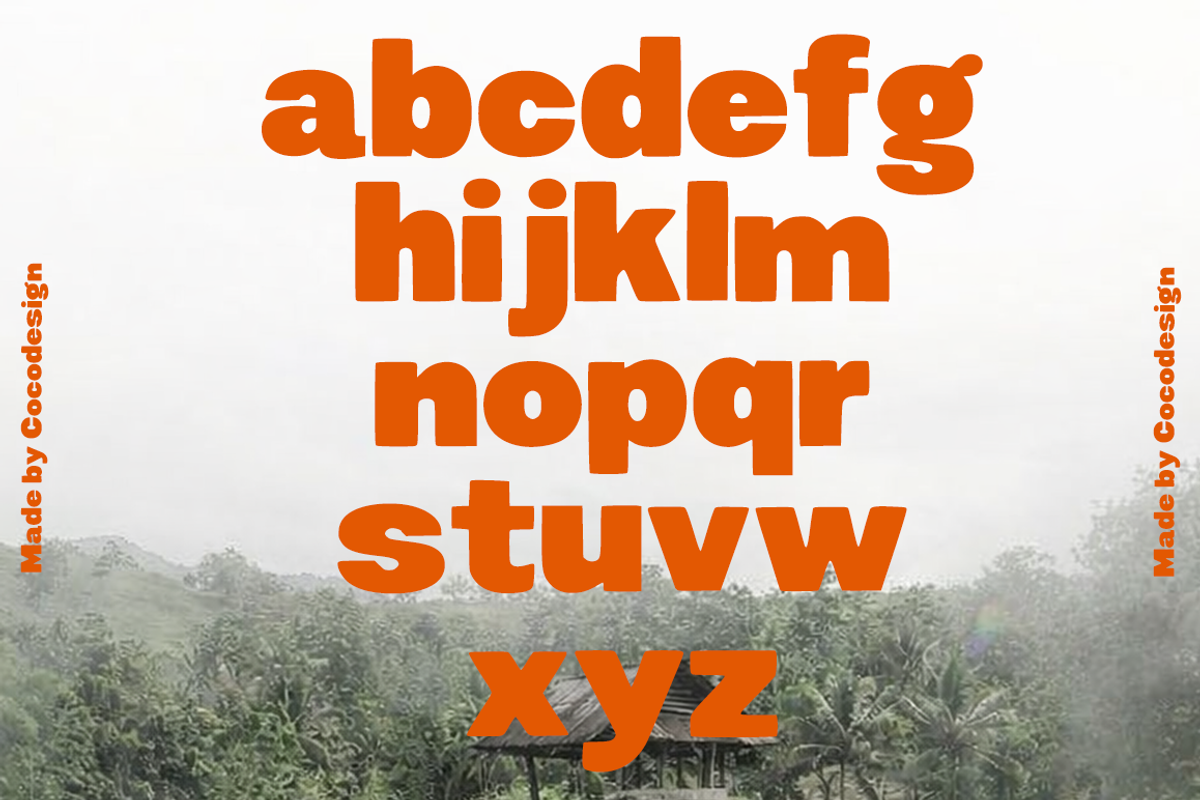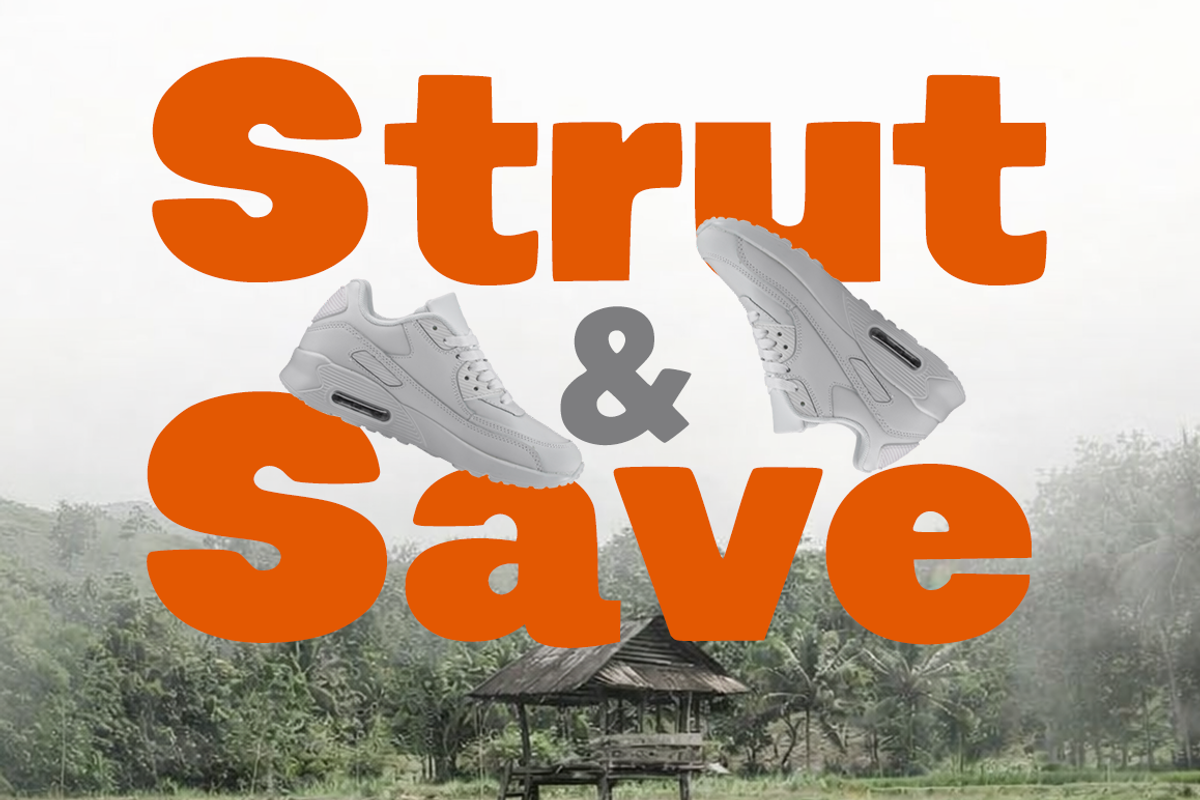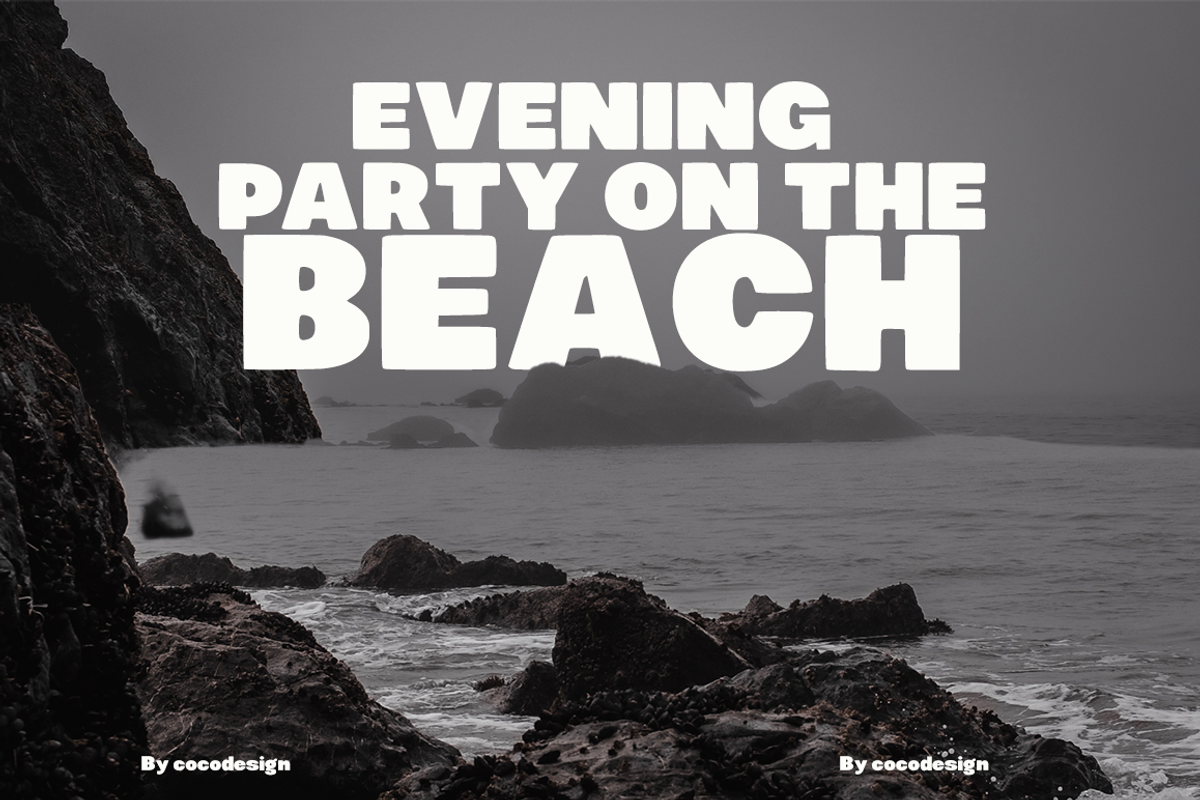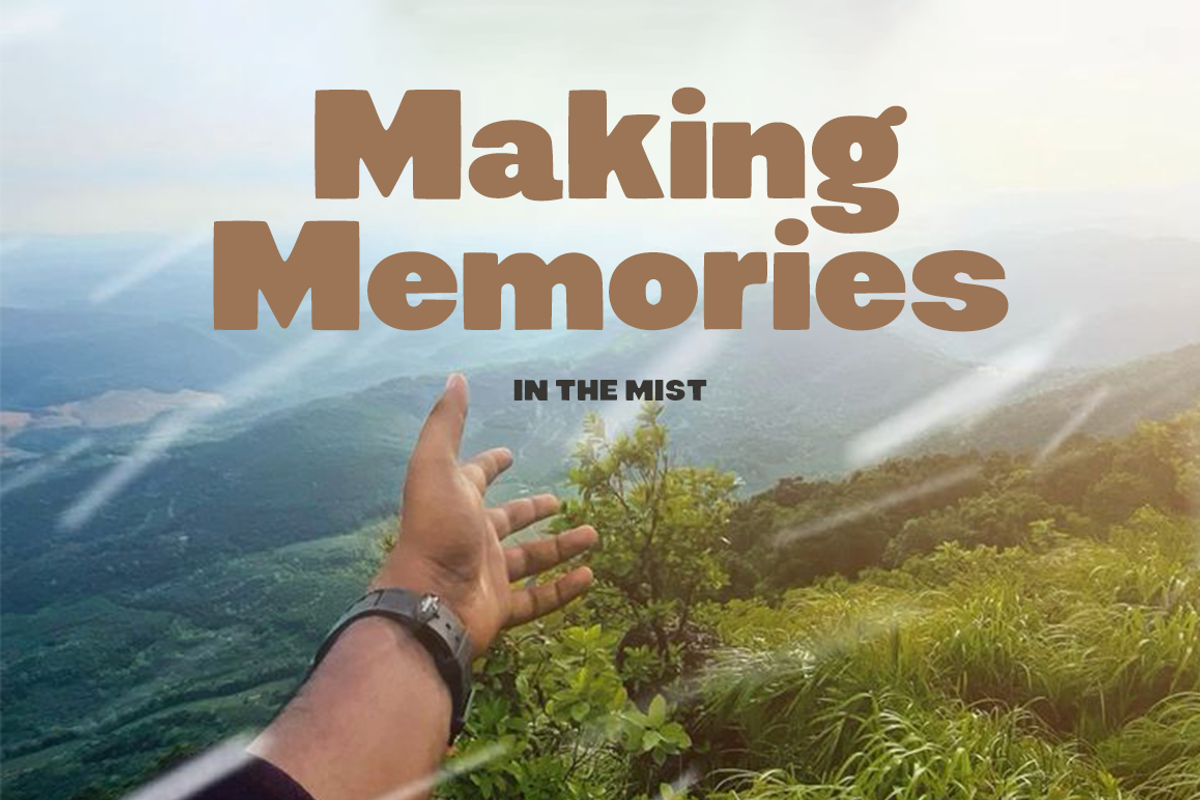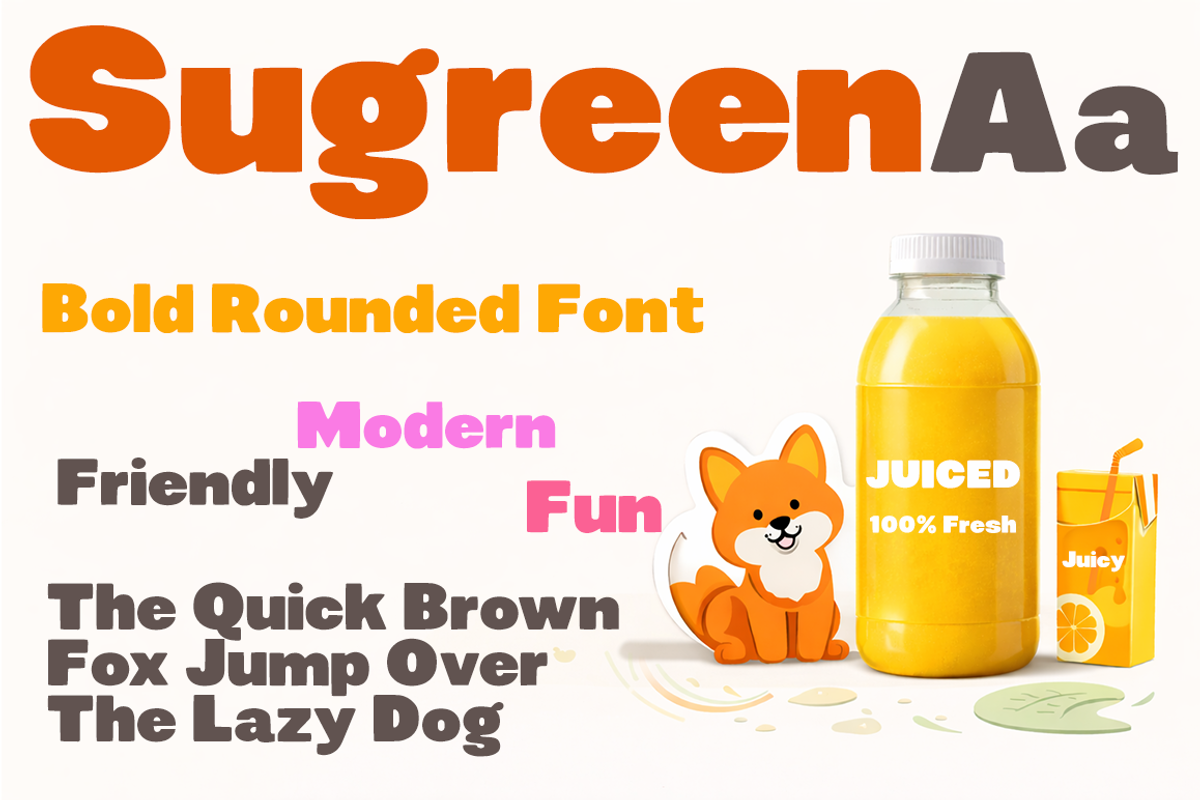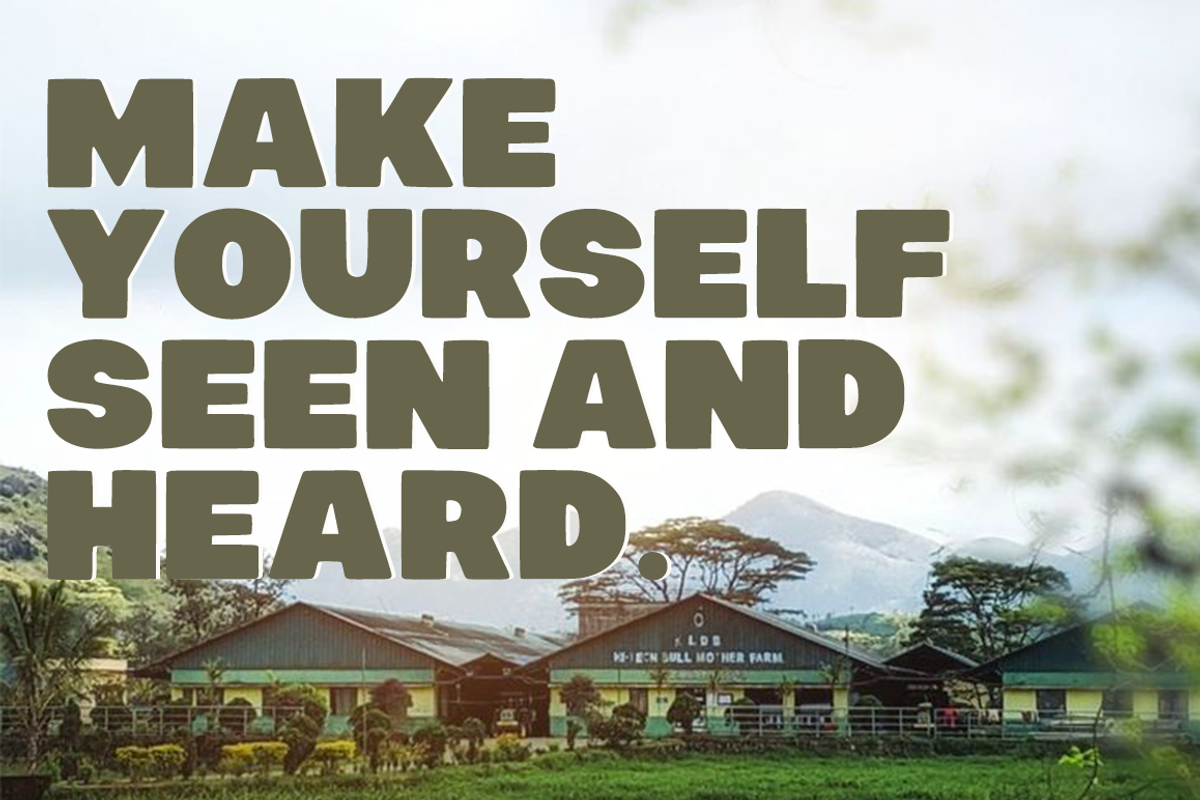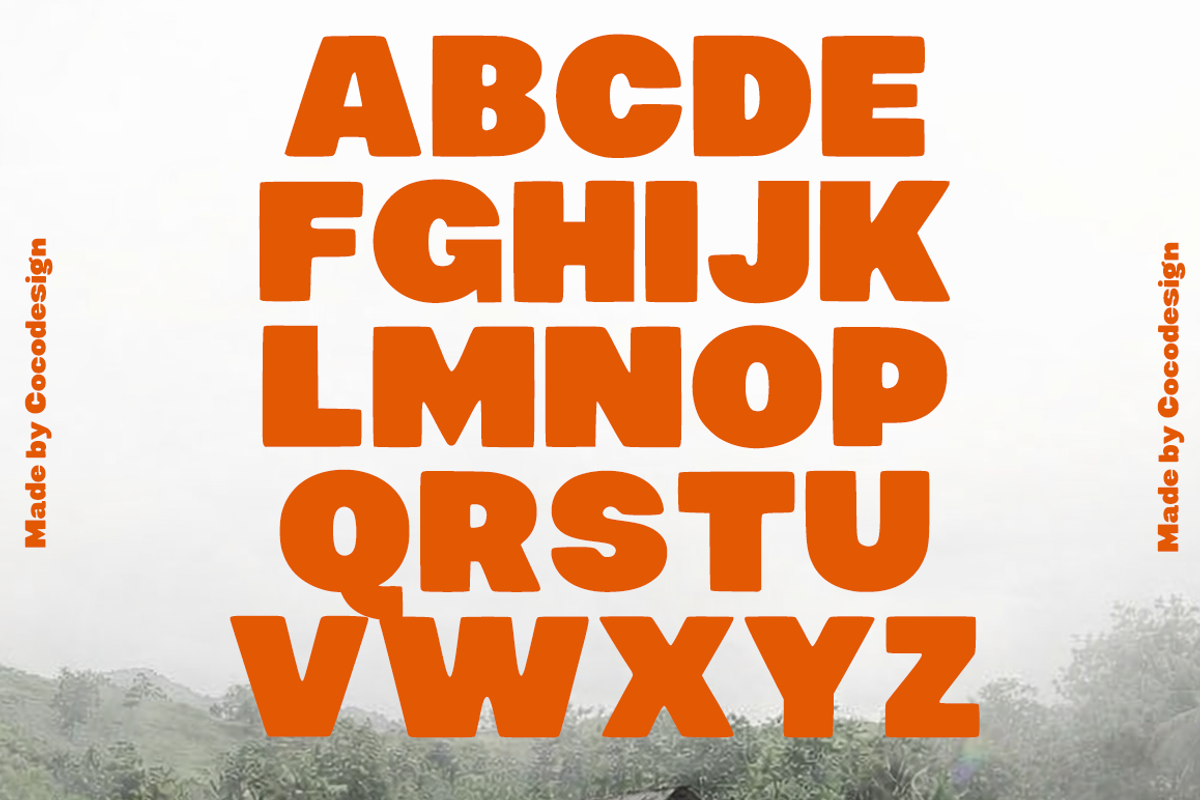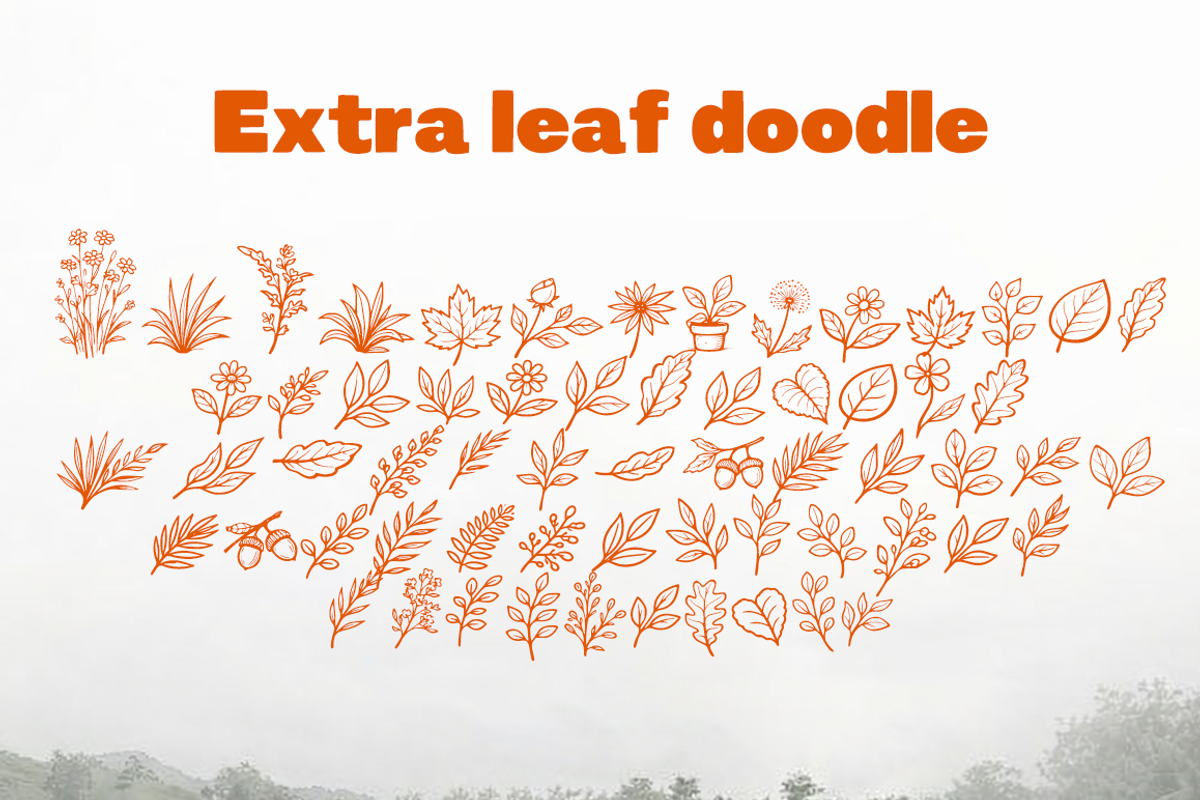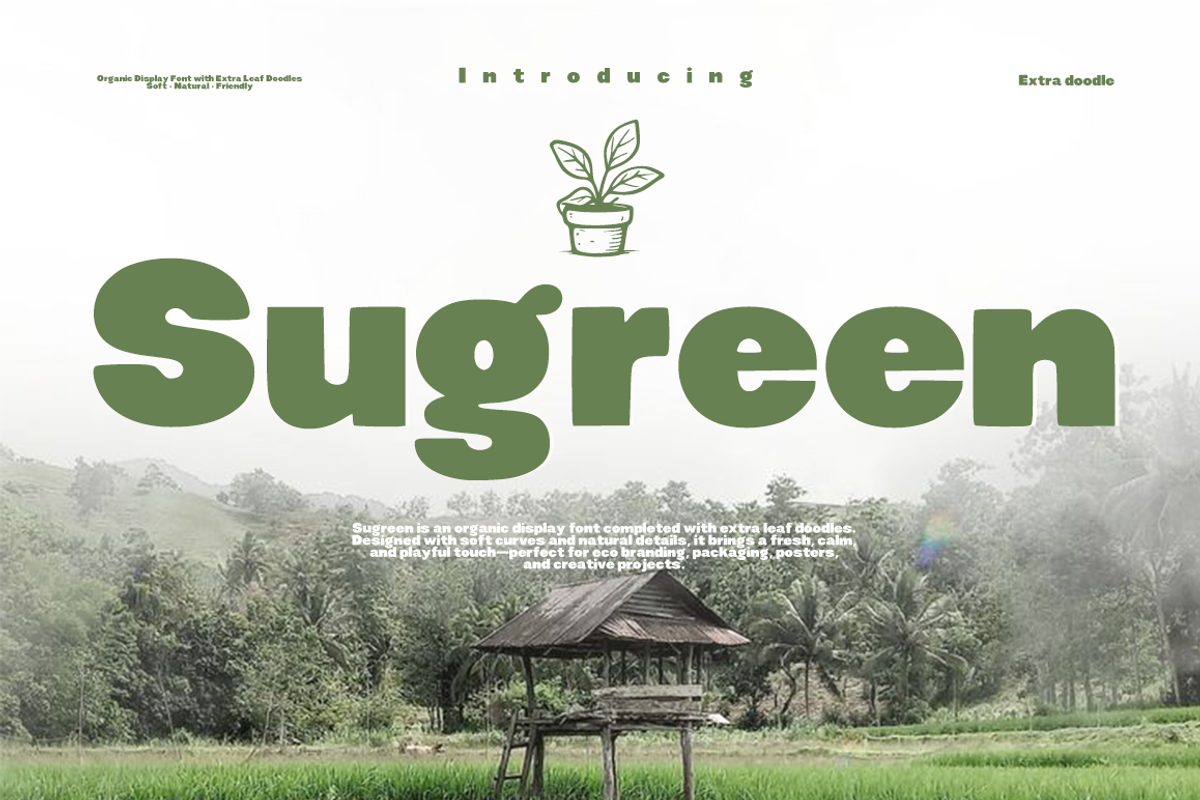
Sugreen – Organic Display Font
Sugreen is an organic display font inspired by nature, featuring soft curves and balanced shapes. Completed with extra leaf doodles, this font brings a fresh, calm, and friendly visual character suitable for a wide range of creative projects.
Designed to work beautifully in headlines and decorative typography, Sugreen is ideal for eco branding, packaging, posters, logos, labels, social media graphics, and creative storytelling with a natural touch.